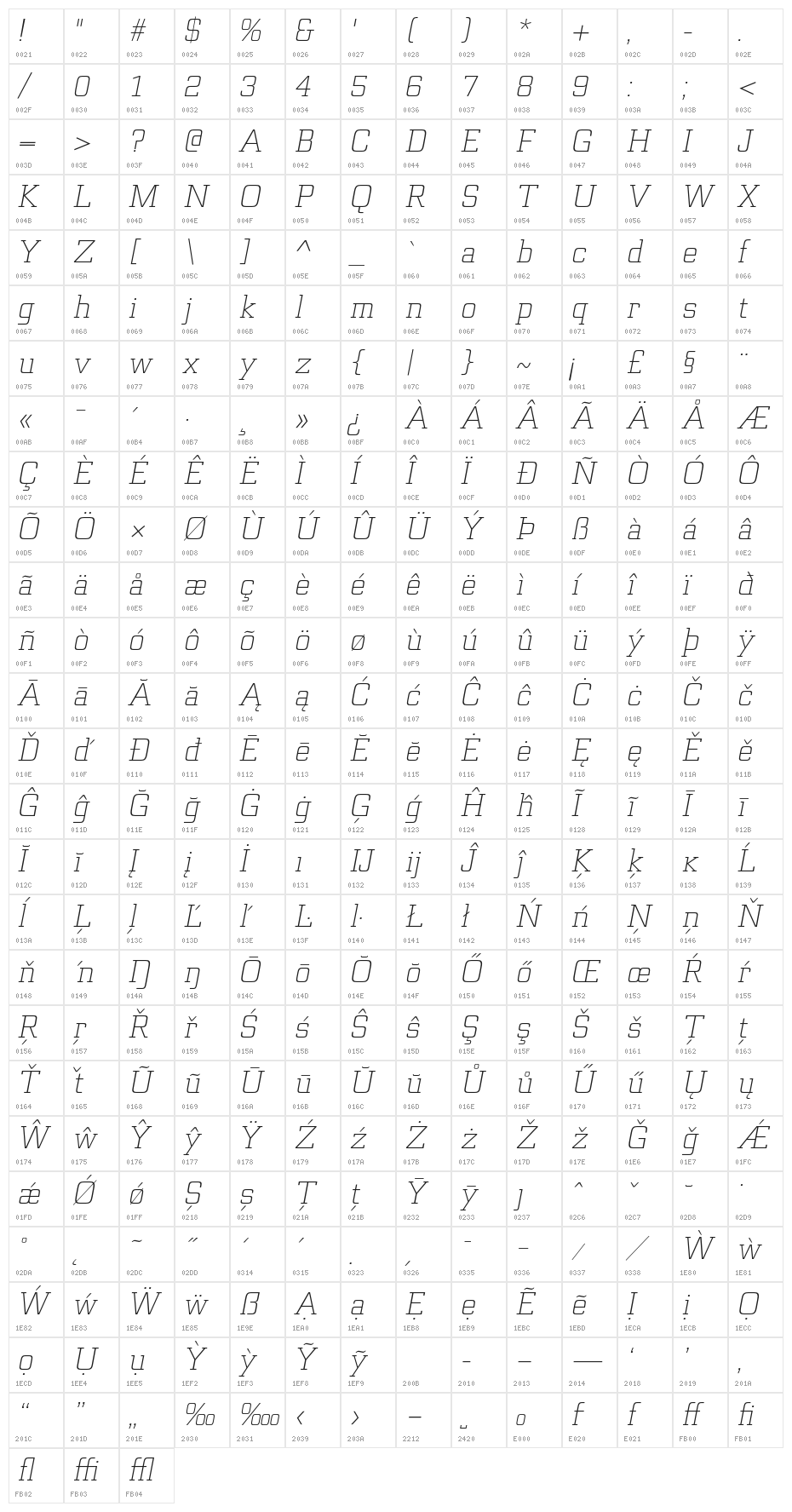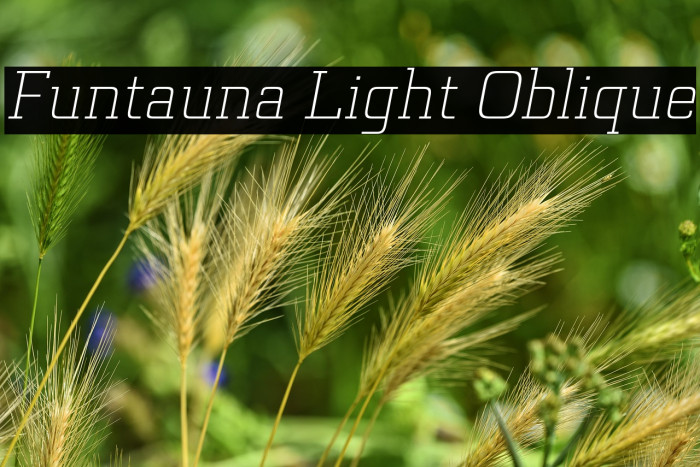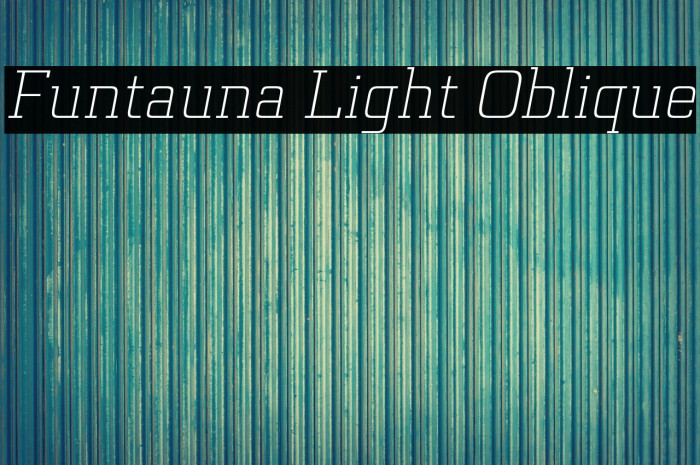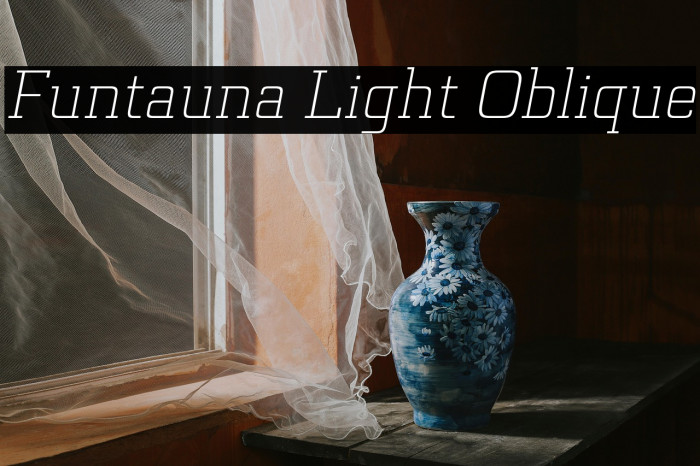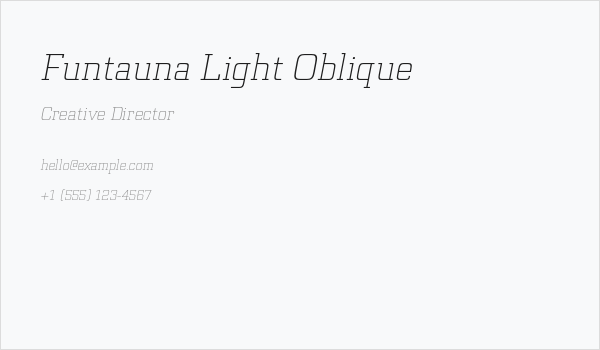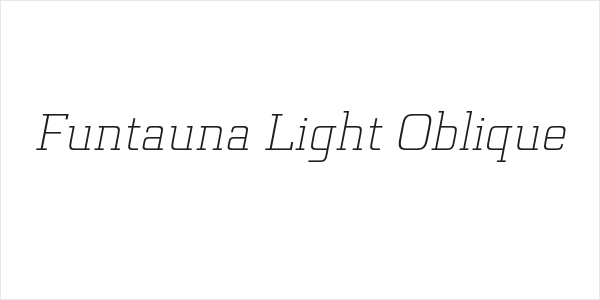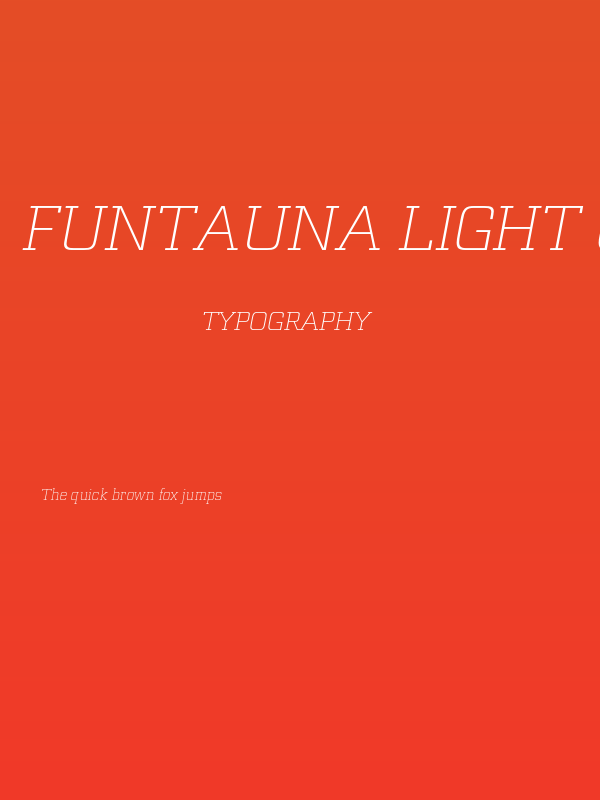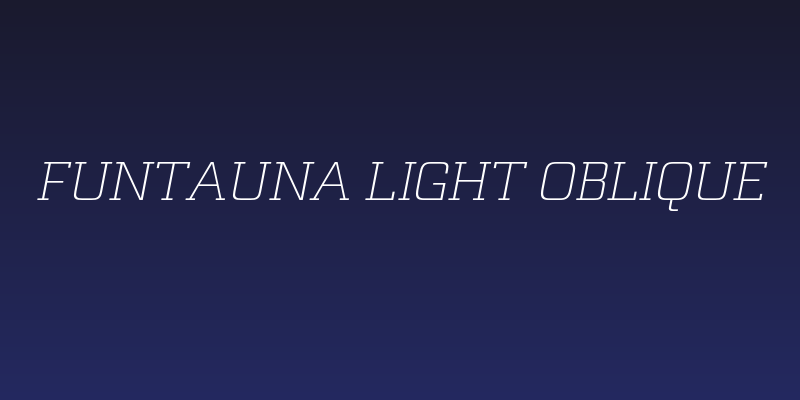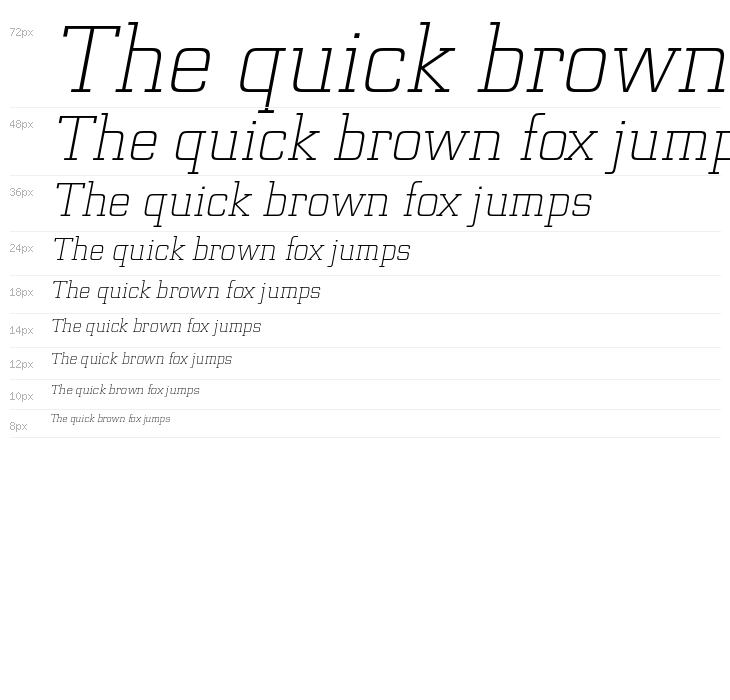
Funtauna Light Oblique Font
Funtauna Light Oblique Description
This font features a sleek and modern design with an oblique orientation, giving it a dynamic and forward-leaning appearance. The characters are crafted with a light weight, providing an airy and elegant feel. The strokes are consistent and smooth, with a medium contrast that enhances readability while maintaining a stylish look. The overall design is clean and minimalistic, making it suitable for contemporary projects. The character spacing is normal, ensuring clarity and legibility across various applications.